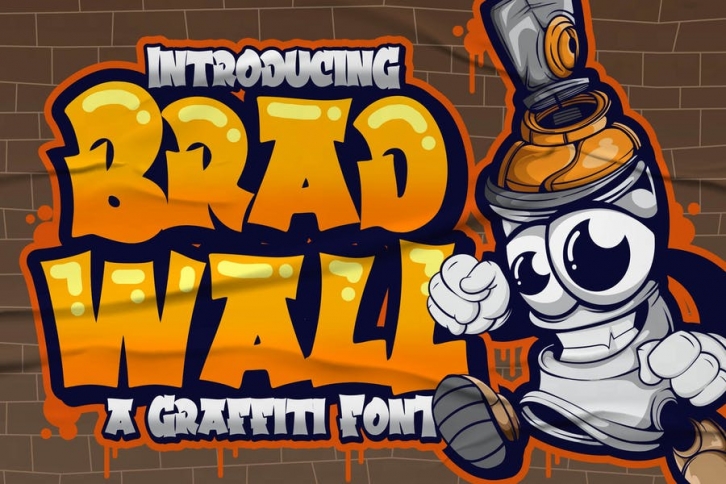
Introducing of our new product the name is Bradwall Graffiti Font, Bradwall inspired by graffiti style with a fun theme very good for graffity poster, Hip Hop music, kids poster, flyer, childrenbook, cartoon, comic etc